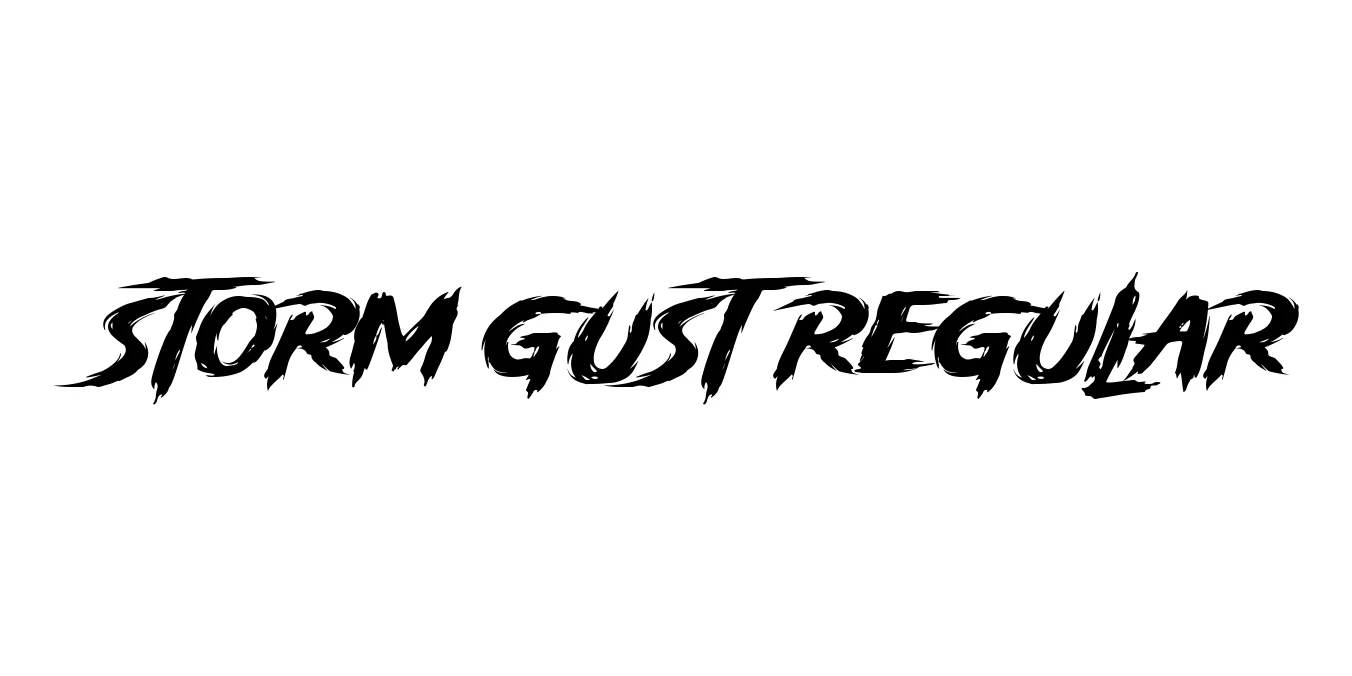
Storm Gust Regular
Storm Gust Regular is a powerful and expressive script typeface designed by the renowned typographer Mans Greback. It features a hand-drawn, energetic aesthetic that mimics the fluidity and raw texture of a brush pen. Released as part of a larger atmospheric font family, this typeface is distinguished by its dramatic strokes and high-contrast character design, making it an excellent choice for projects that require a bold, organic, and fast-paced visual identity.
The font includes a comprehensive set of characters, including upper and lowercase letters, numerals, and international punctuation. Its swash-like flourishes and natural flow provide a professional hand-lettered look without the need for manual illustration. The Regular weight offers a perfect balance of thickness and spacing, ensuring that it remains legible in various digital and print formats, from large-scale banners to social media graphics.
Storm Gust Regular Best Uses
Creating unique, high-energy logos and identity systems.
Perfect for t-shirt designs, sports merchandise, and streetwear.
Ideal for eye-catching Instagram quotes and high-impact YouTube thumbnails.
Great for music event flyers, movie titles, and high-impact advertisements.